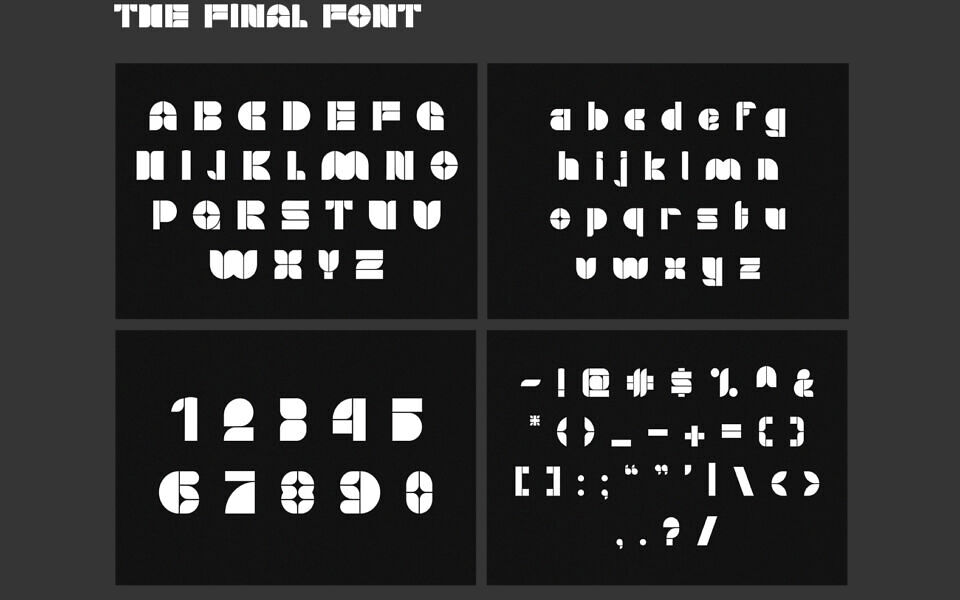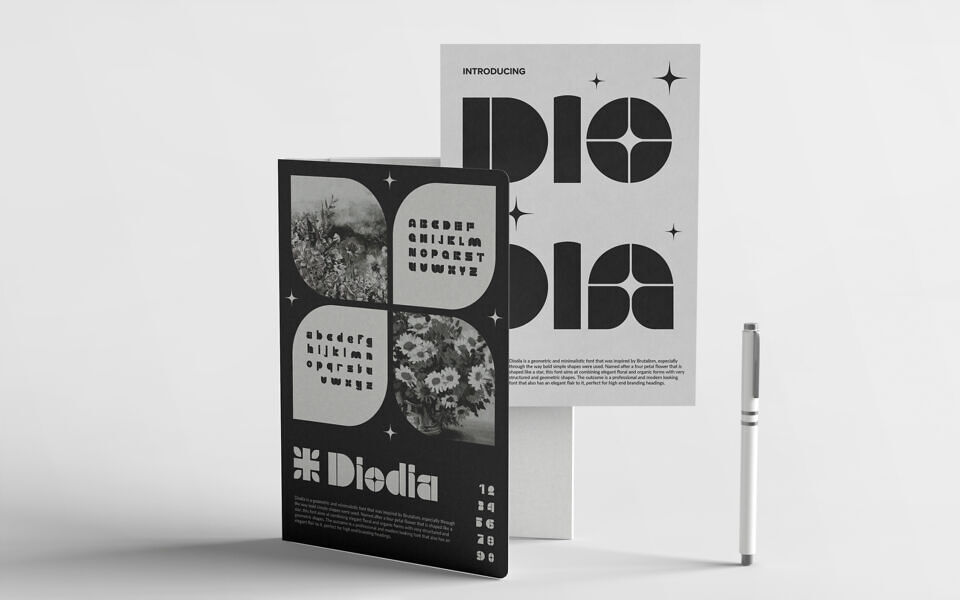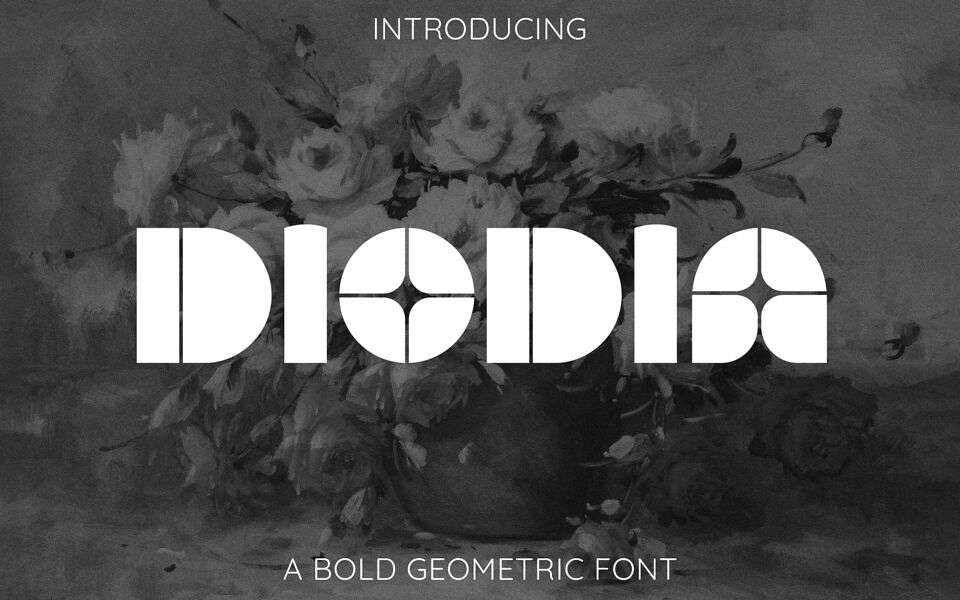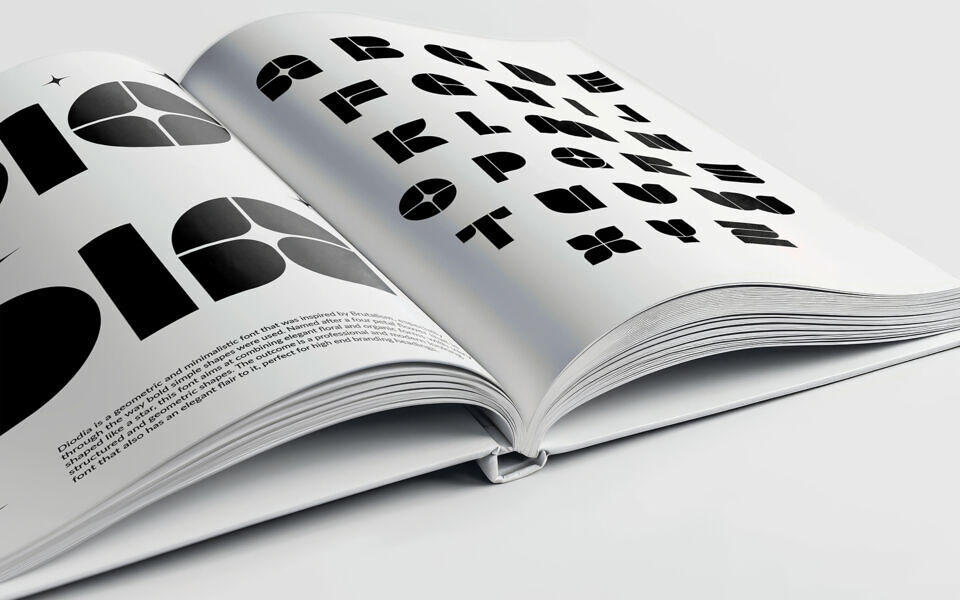
Diodia is a brutalist-inspired font featuring bold, simplistic shapes with a structured look, contrasted by floral, elegant touches. This juxtaposition reflects the beauty of man-made creations versus nature, blending modern, professional vibes with serene, organic elegance. Its bold shapes and thin spaces create a distinct, disconnected yet readable style.
Targeting high-end businesses like fashion, watch, jewelry, and architecture firms, Diodia suits design-centric brands with a modern, minimalistic aesthetic. Ideal for posters, ads, or signs due to its bold design, it appeals to companies valuing timeless elegance and trendy, sophisticated visuals that enhance their creative output.